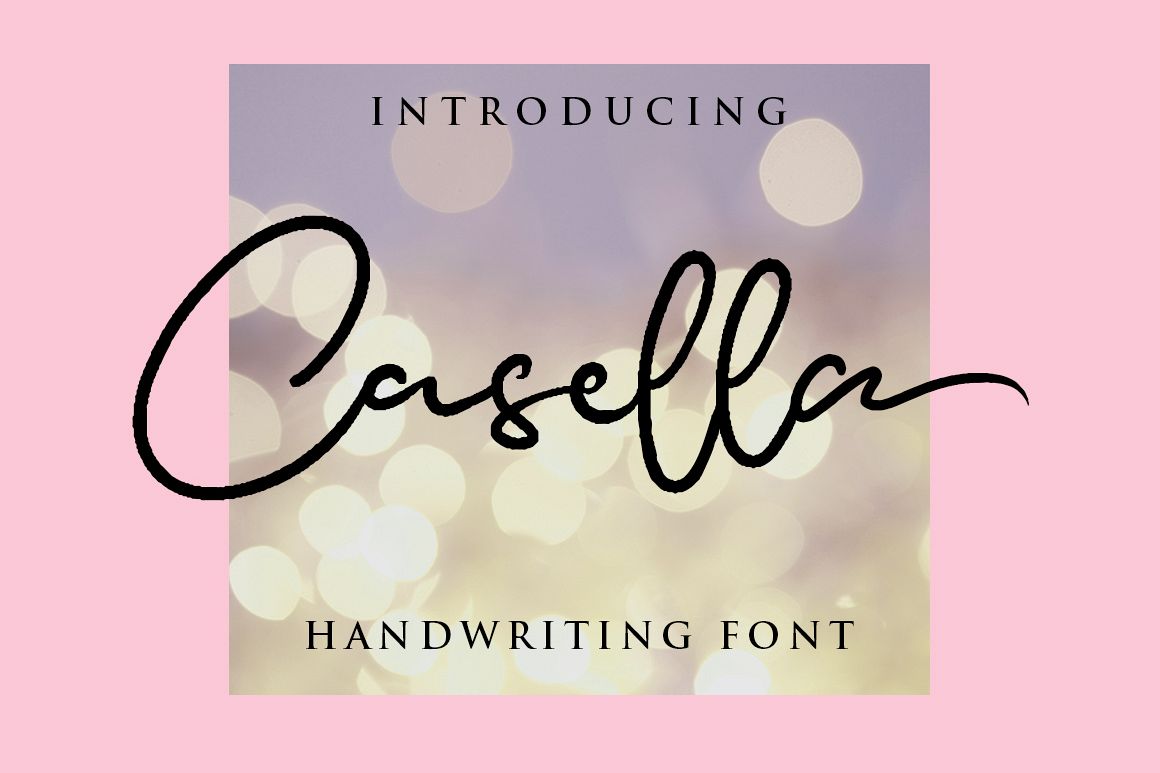
Introducing of our new product the name is Casella font. inspired by signature and stylish handwriting, Casella font is good for logotype, wedding invitation design, badge, headline, signature, packaging and any more. Casella font include Mutilingual Support